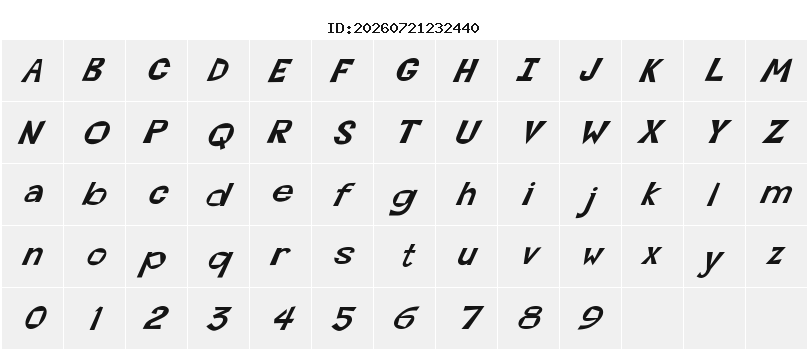
FZ JAZZY 7 ITALIC.ttf is a modern, elegant sans-serif font designed for ultimate readability and visual harmony. Perfect for branding, headlines, web design, and print materials.